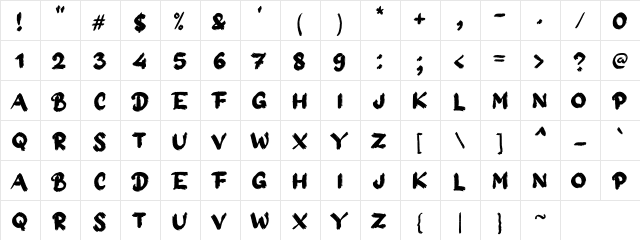
a Ape Mount Regular
| Designer | Wahyu Eka Prasetya |
Design Context for a Ape Mount Typeface
a Ape Mount is a composed and adaptable typeface that performs quietly and consistently across a wide range of design contexts.